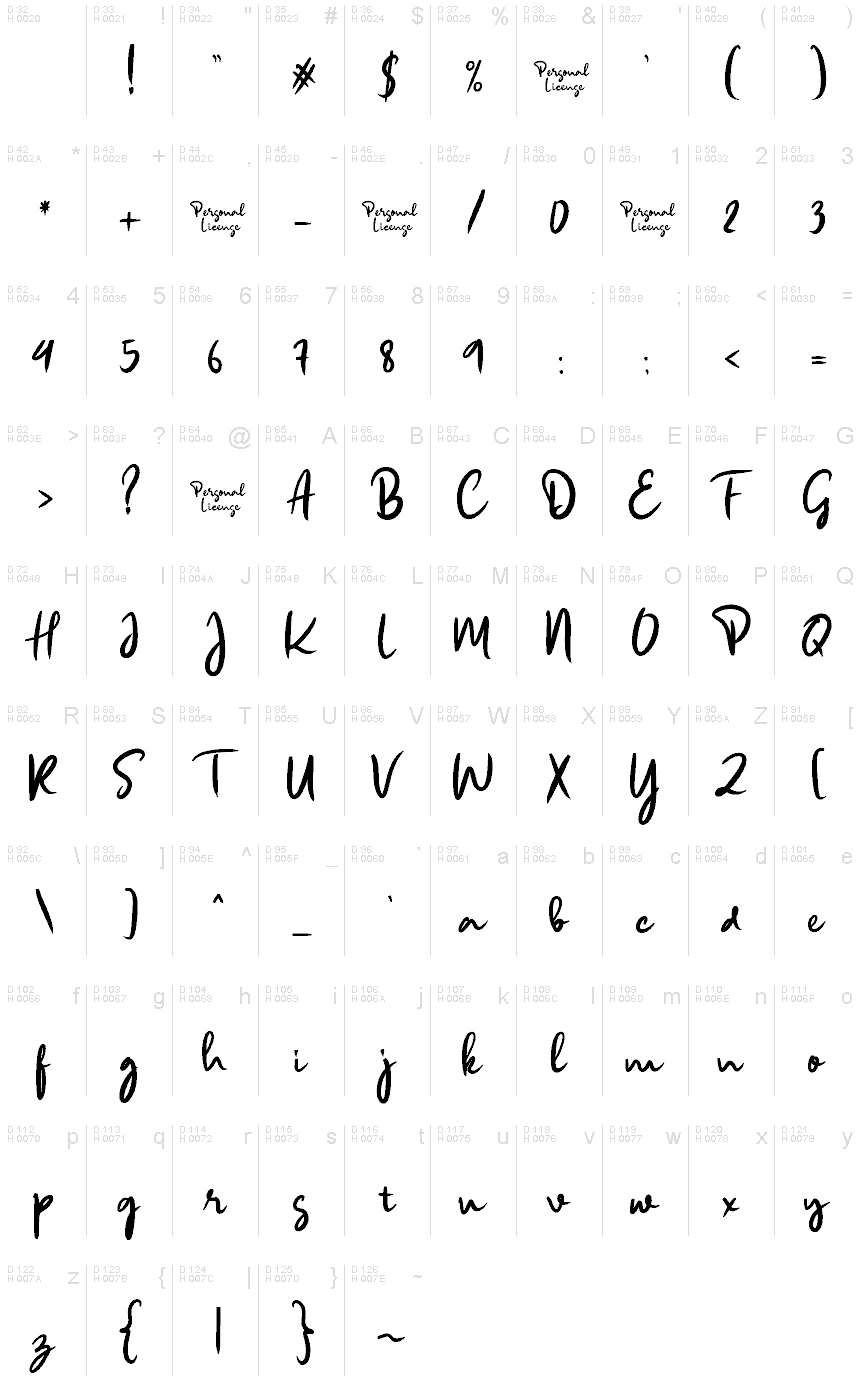
Windmill Demo
Windmill font by Java Pep embodies casual elegance with a smooth flow that brings a modern, relaxed aesthetic. Its approachable warmth captures timeless charm, seamlessly blending classic and contemporary influences.
Perfect for wedding invitations, greeting cards, branding projects, home decor quotes, book covers, packaging design, social media posts, event posters, websites, labels, and magazine layouts. This free handwritten font will breathe life into your artistic endeavors.